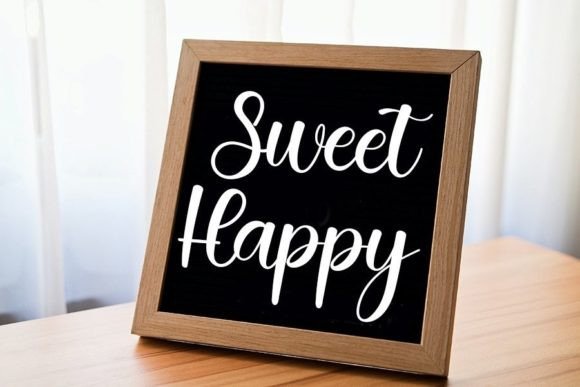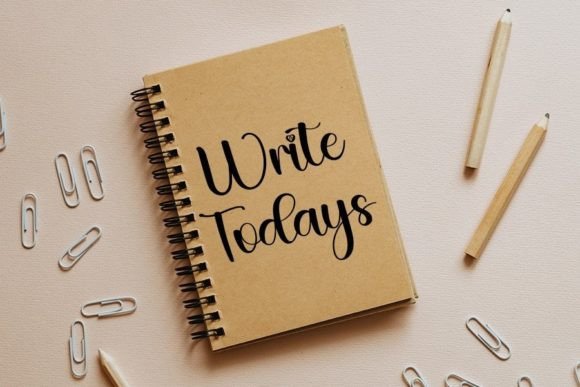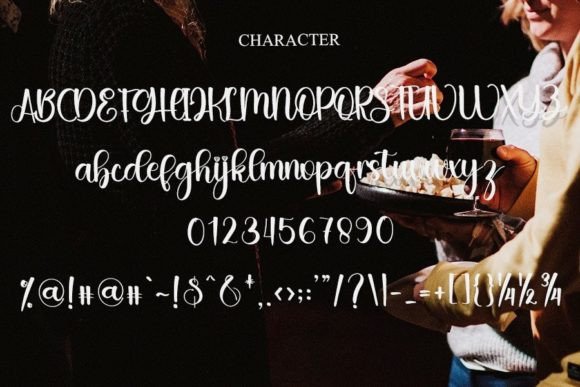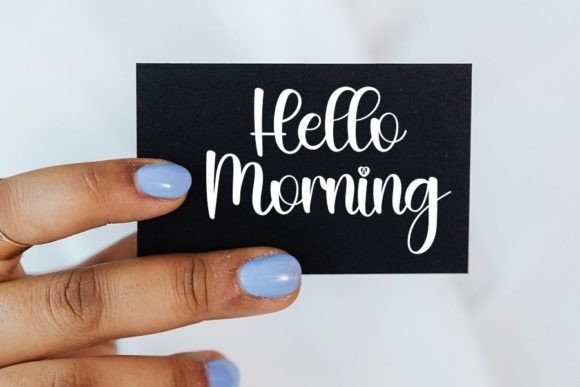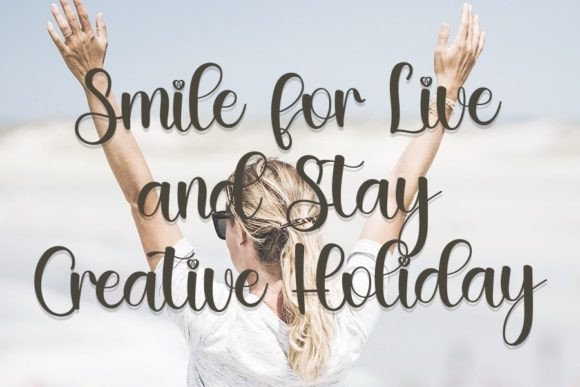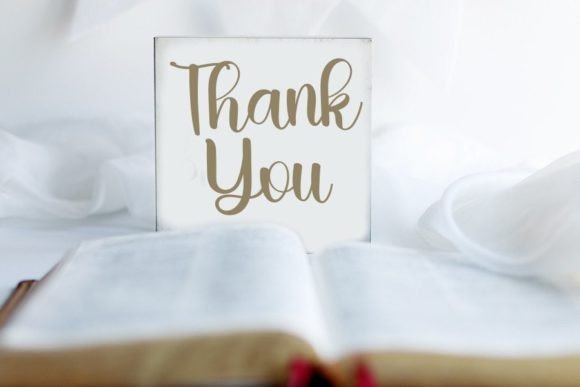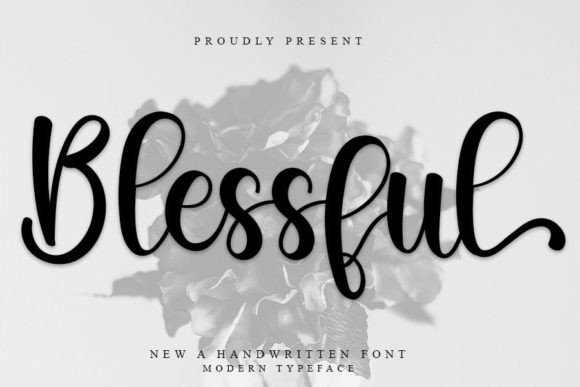
Blessful Font: Elevate Your Designs with Timeless Elegance
In the world of typography, a font can make or break the aesthetic of a design project. For designers and crafters seeking to infuse their work with a touch of sophistication and elegance, the Blessful Font is an exceptional choice. This stylish handwritten font boasts a contemporary atmosphere and impeccable form, drawing inspiration from timeless classic calligraphy.
The Essence of Blessful Font
Blessful Font is a meticulously crafted typeface that strikes a perfect balance between modernity and tradition. Its design is rooted in the principles of classic calligraphy, yet it carries a fresh and contemporary vibe that sets it apart from more traditional fonts. This unique blend makes Blessful an ideal choice for a wide range of design projects, from branding and advertising to packaging and digital media.
Key Features of Blessful Font
- PUA Encoded for Easy Access: One of the standout features of Blessful Font is its PUA (Private Use Area) encoding. This means that users can easily access all the amazing glyphs and ligatures without any hassle, allowing for a seamless design experience.
- Balanced and Varied: The font is designed with balance and variety in mind. Each letterform is carefully crafted to ensure that the text flows beautifully, making it perfect for both short phrases and longer passages.
- Contemporary yet Classic: Blessful Font manages to marry contemporary design sensibilities with the elegance of classic calligraphy. This makes it versatile enough to be used in a variety of contexts, from modern digital designs to more traditional print materials.
Applications of Blessful Font
The versatility of Blessful Font makes it suitable for a myriad of design applications. Here are a few ideas to get you started:
- Branding and Logotypes: Create a lasting impression with a logo that exudes elegance and sophistication. Blessful Font’s unique character can help your brand stand out.
- Wedding and Event Stationery: Add a touch of class to your wedding invitations, party invites, and other event materials with this beautiful font.
- Packaging Design: Elevate your product packaging with a font that communicates luxury and quality.
- Digital Media: Whether it’s for a website header, social media graphics, or digital advertising, Blessful Font can add a level of refinement to your digital content.
Why Choose Blessful Font?
In a sea of fonts, Blessful stands out for several reasons:
- Unique Aesthetic: Its blend of contemporary and classic elements ensures that your designs will have a unique look that captures attention.
- Ease of Use: Being PUA encoded, it offers users convenience and flexibility in accessing a wide range of glyphs and ligatures.
- High Versatility: Suitable for a broad spectrum of design projects, making it a valuable addition to any designer’s toolkit.
Blessful Font is more than just a typeface; it’s a design tool that can transform your projects with its elegance and contemporary charm. Whether you’re a professional designer or a crafter looking to add a personal touch to your work, Blessful Font offers the perfect blend of style, versatility, and ease of use. By incorporating this beautiful font into your designs, you’re not just choosing a font; you’re elevating your work to new heights of aesthetic excellence.
Discover the potential of Blessful Font and let it be the key to unlocking a new level of sophistication and elegance in your design projects.